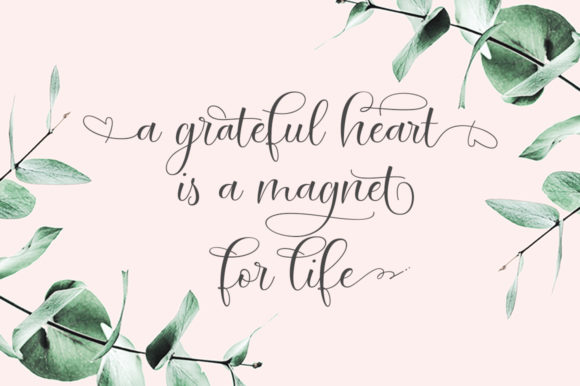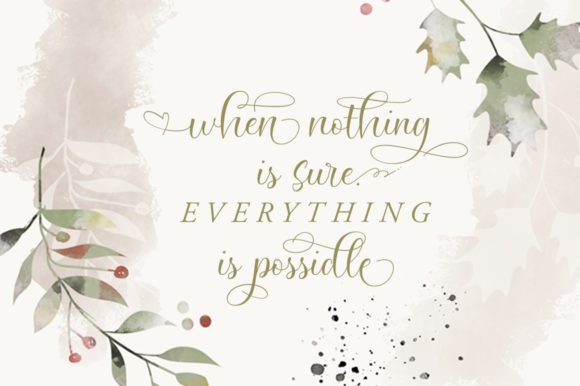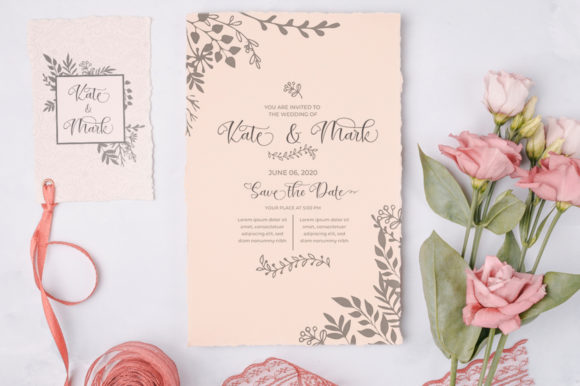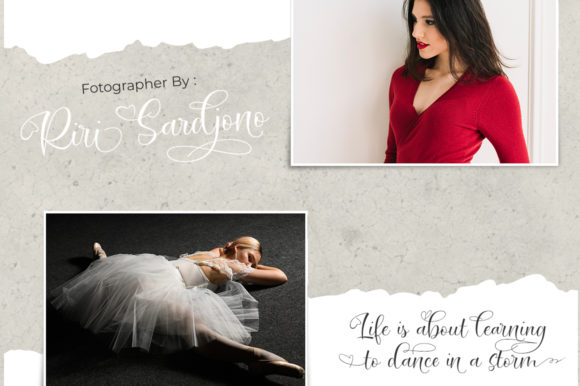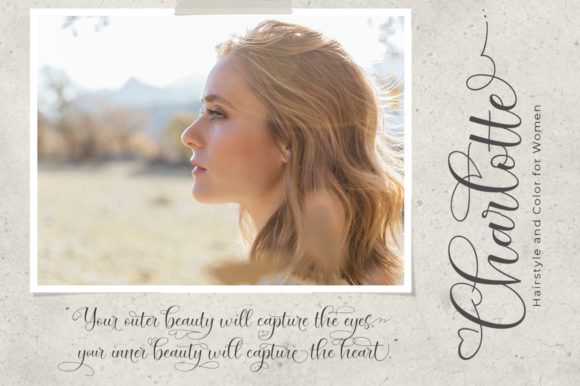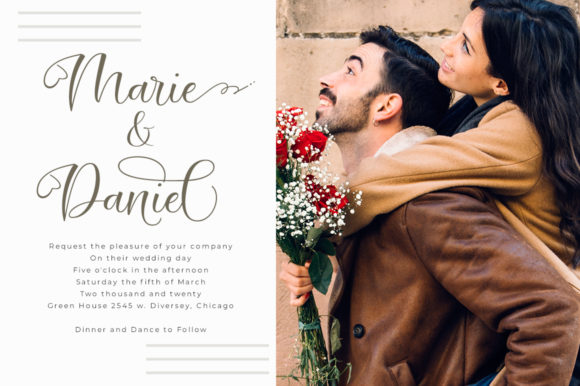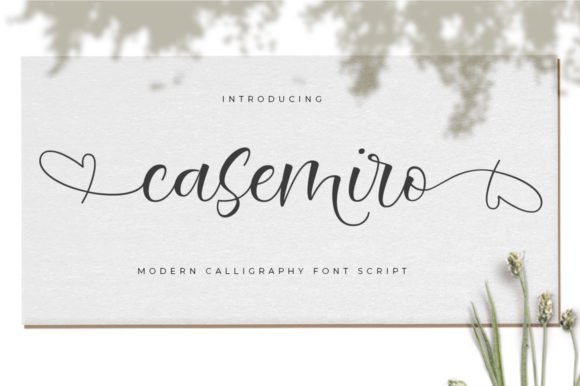
Where Words Become Works of Art
As a designer, there’s nothing quite like the thrill of watching a project come together. It’s that moment when the words, the colors, and the typography all harmonize in perfect symphony – and it’s pure magic. Whether you’re crafting a wedding invitation, a logo, or a brand identity, the right font can make all the difference.
Enter the stunning Casemiro Font, a script font that’s equal parts charming and elegant. With its varying baseline, smooth lines, and gorgeous glyphs, this font is a stylish homage to classic calligraphy. It’s the perfect tool for designers who want to elevate their projects to the next level, and with its stunning alternates, the possibilities are endless.
Whether you’re a seasoned pro or just starting out, the Casemiro Font is a valuable addition to any designer’s toolkit. So why settle for ordinary when you can create something truly extraordinary?
Casemiro Font Key Features
- Font Type: Script, Casual
- Unique Characteristics: Handwritten, cursive, elegant, and sophisticated design; ideal for titles, headings, and invitations
Casemiro Font Review
I recently had the chance to work with the Casemiro Font, and here’s my honest take on it.
- Unique aesthetic: The Casemiro Font has a distinctive, modern feel that sets it apart from more common fonts.
- Legibility: Despite its unique design, the font is surprisingly easy to read, even at smaller sizes.
- Customization options: The font family comes with a range of weights and styles, giving you plenty of flexibility for different design projects.
- Compatibility issues: I experienced some compatibility problems with older browsers and systems, which may be a concern for designers working on legacy projects.
- Limited language support: The font family is geared towards Latin-based languages, which may limit its use for designers working on projects in other languages.
- Size limitations: While the font is legible, it can look somewhat awkward at very large sizes, which may be a concern for designers working on titles or headings.
The Casemiro Font is a solid choice for designers looking for a unique, modern font. While it has some limitations, its customization options and legibility make it a worthwhile option for a wide range of projects. With a bit of caution and planning, I’d recommend giving it a try.
Getting the Most Out of Casemiro Font
To get the most out of Casemiro font, use it for:
- Headings and titles for a bold, eye-catching effect.
- Body text for a clean and modern look.
- Logos and branding materials for a unique and recognizable identity.
Casemiro font is commonly used for:
- Designing modern and sleek websites and mobile apps.
- Creating professional-looking business cards and brochures.
- Designing social media graphics and
Alternatives to Casemiro Font
Fontin is a sans-serif font designed by Robert Slimbach. It is known for its clean and elegant appearance, making it suitable for corporate and publishing materials. Fontin is a more refined and subtle alternative to Casemiro Font, with a more neutral tone.
Comparison to Casemiro Font: Fontin has a more minimalist approach, whereas Casemiro Font has a bolder and more dramatic feel. Fontin is ideal for situations where a professional and understated look is required.
Lato is a sans-serif font designed by Łukasz Dziedzic. It is highly versatile and can be used for a wide range of applications, from body text to headlines. Lato is a more modern and dynamic alternative to Casemiro Font, with a greater emphasis on legibility.
Comparison to Casemiro Font: Lato has a more contemporary feel, whereas Casemiro Font has a more classic and timeless appearance. Lato is ideal for situations where a fresh and modern look is required.
Merriweather is a serif font designed by Eben Sorkin. It is known for its classic and elegant appearance, making it suitable for publishing and academic materials. Merriweather is a more traditional and sophisticated alternative to Casemiro Font, with a greater emphasis on readability.